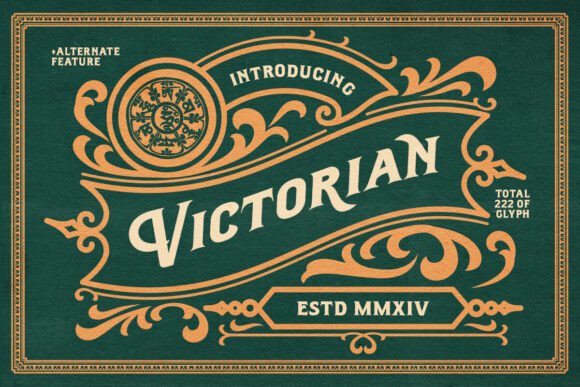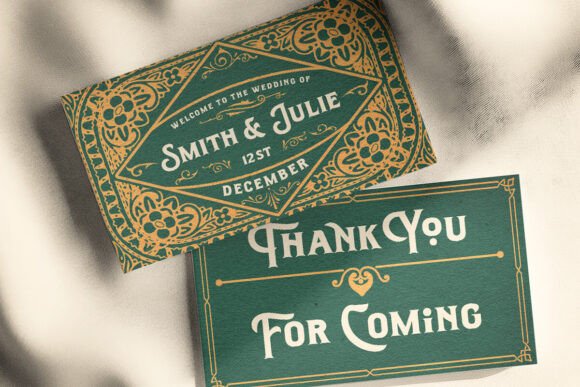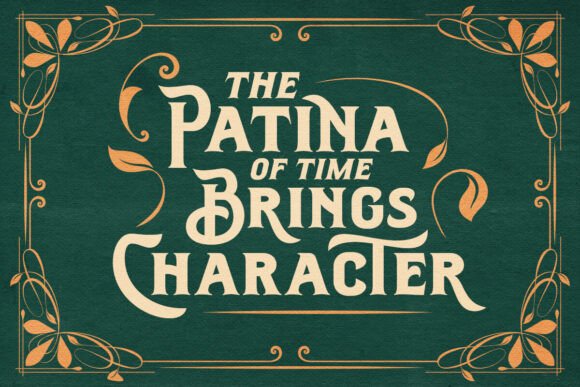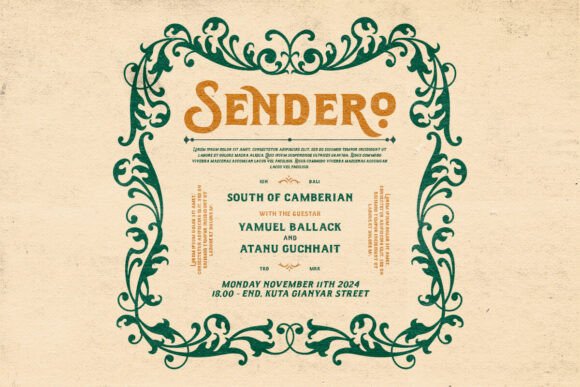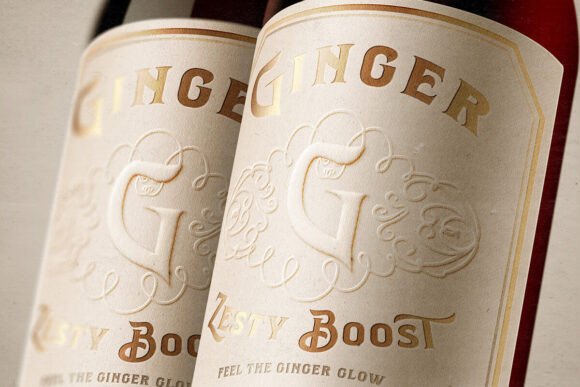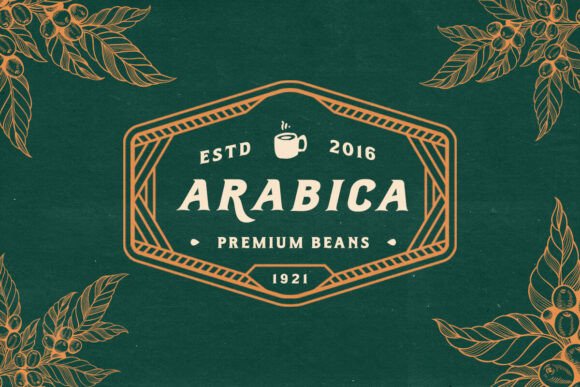
Introducing Antique Hard: A Bold Vintage-Inspired Typeface
Are you looking for a font that exudes classic charm and sophistication? Look no further than Antique Hard, a bold vintage-inspired typeface that draws from the rich artistic heritage of classic sign painting and Victorian-era artistry. With its strong, solid presence and nostalgic charm, Antique Hard is the perfect choice for designers and crafters seeking to add a touch of old-school elegance to their projects.
A Font with a Rich History
Antique Hard is a carefully crafted font that pays homage to the timeless art of sign painting and Victorian-era design. The font’s bold, solid lines and classic letterforms evoke the grandeur and opulence of a bygone era, making it an ideal choice for projects that require a touch of nostalgia and sophistication. Whether you’re designing a logo, creating an invitation, or developing a brand identity, Antique Hard is the perfect font to help you achieve your creative vision.
Key Features of Antique Hard
- Bold and Solid Presence: Antique Hard boasts a strong, solid presence that commands attention and exudes confidence.
- Vintage-Inspired Design: The font’s classic letterforms and bold lines are inspired by the timeless art of sign painting and Victorian-era design.
- Multi-Language Support: Antique Hard supports multiple languages, making it a versatile choice for designers and crafters working on international projects.
- Perfect for Headlines and Logotypes: The font’s bold, solid lines and classic letterforms make it an ideal choice for headlines, logotypes, and branding projects.
Uses for Antique Hard
Antique Hard is a versatile font that can be used in a variety of creative projects, including:
- Headlines and Titles: Use Antique Hard to create bold, eye-catching headlines and titles that demand attention.
- Logotypes and Branding: The font’s classic letterforms and bold lines make it an ideal choice for logotypes and branding projects.
- Invitations and Stationery: Add a touch of elegance and sophistication to your invitations and stationery with Antique Hard.
- Packaging and Product Design: Use Antique Hard to create eye-catching packaging and product designs that stand out on store shelves.
Why Choose Antique Hard?
With so many fonts to choose from, why should you choose Antique Hard? Here are just a few reasons why this font stands out:
- Unique and Distinctive: Antique Hard is a unique and distinctive font that will help your project stand out from the crowd.
- High-Quality Design: The font is carefully crafted to ensure that it is of the highest quality, with clean lines and precise letterforms.
- Versatile and Flexible: Antique Hard can be used in a variety of creative projects, from headlines and logotypes to invitations and packaging.
In conclusion, Antique Hard is a bold vintage-inspired typeface that is perfect for designers and crafters seeking to add a touch of old-school elegance to their projects. With its strong, solid presence and nostalgic charm, Antique Hard is the ideal choice for headlines, logotypes, invitations, packaging, and branding projects. Its versatility, flexibility, and high-quality design make it a valuable addition to any designer’s toolkit.